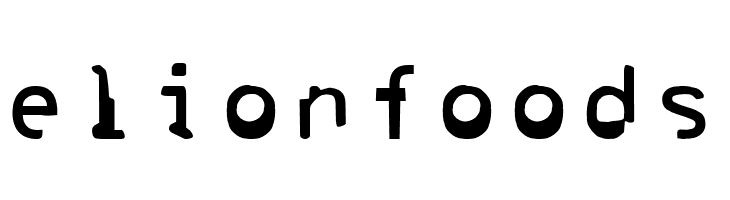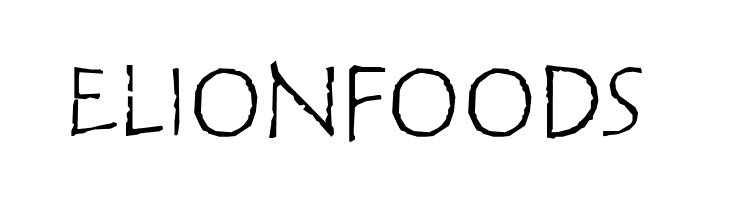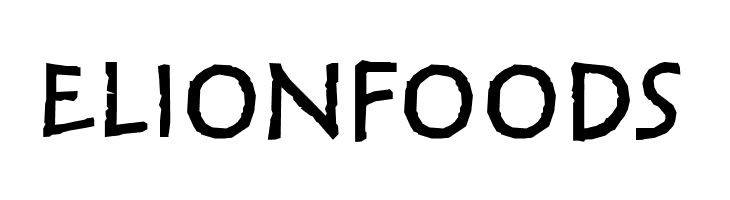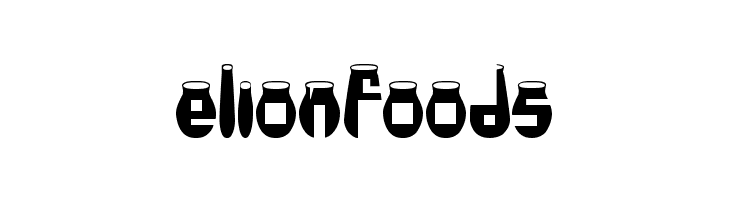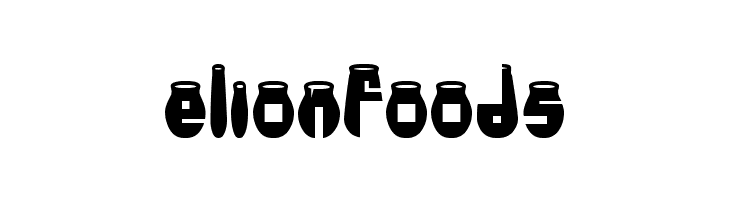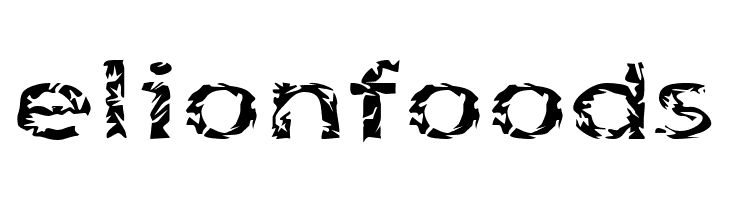
A collection of artistic illustrations representing characters, not a traditional font.
A bold, industrial font with geometric and mechanical elements.
An artistic font with abstract, Picasso-inspired face designs for each character.
A bold, geometric font with Art Deco influences, perfect for vintage-inspired designs.
A decorative font of unique symbols and pictograms, bold and visually impactful.
A flowing, elegant script font with high contrast and intricate flourishes.
A bold, dynamic script font with flowing, cursive letters and a strong visual impact.
A bold, graffiti-inspired font with dynamic, irregular shapes.
A bold, graffiti-inspired font with playful, hand-drawn characters.
A bold, graffiti-inspired font with a playful, urban aesthetic.
A bold, geometric font with an industrial and robust design.
A playful, handwritten font with dynamic and irregular strokes.
A modern, geometric slab serif font with consistent stroke width and clear readability.
A modern, geometric font with consistent stroke width and clean design.
A modern, geometric font with consistent stroke width and unique character shapes.
A bold, playful font with rounded edges and a whimsical style.
A bold, jagged font with a dynamic, flame-like appearance.
A bold, three-dimensional font with a retro-modern style.
A playful, panda-themed decorative font with bold, cartoonish icons.
A playful, panda-themed decorative font with cartoonish icons.
A bold, narrow font with a modern Art Deco style and high contrast strokes.